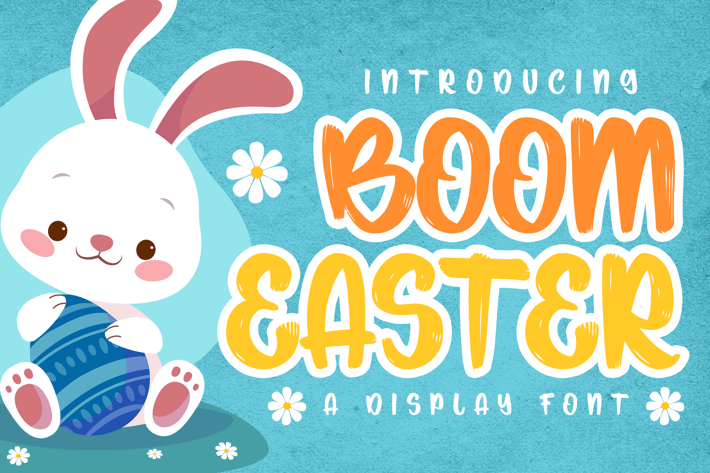
Boom Easter Marker Display Font
Boom Easter Marker Display Font is a distinct, highly detailed. Marker Display Font.
It would make a great choice for exquisite retro-urban designs, business branding, logos, Apparel designs, and more.